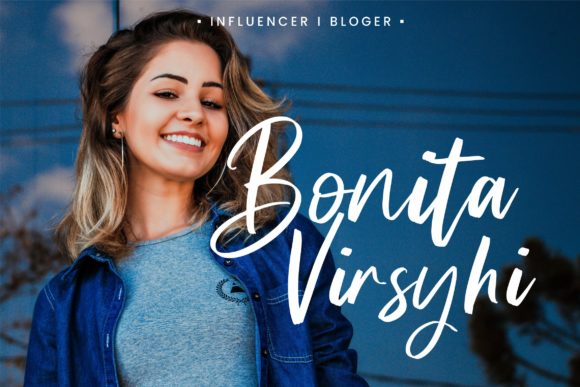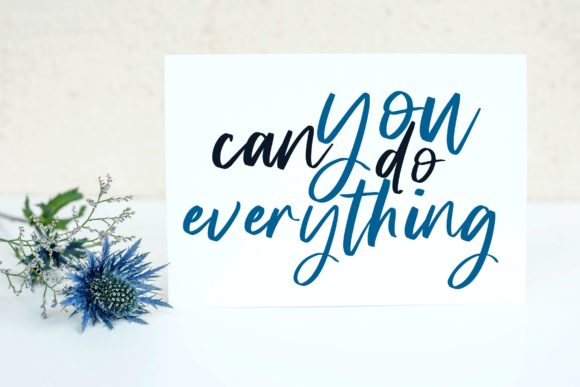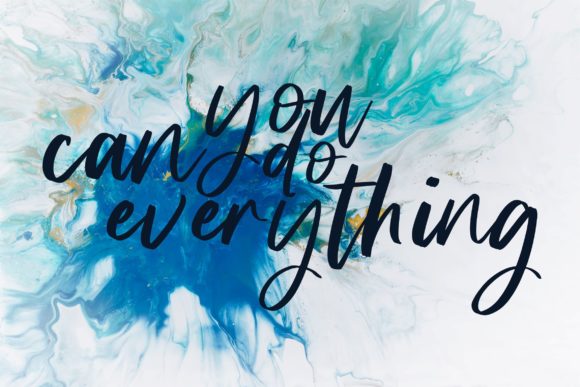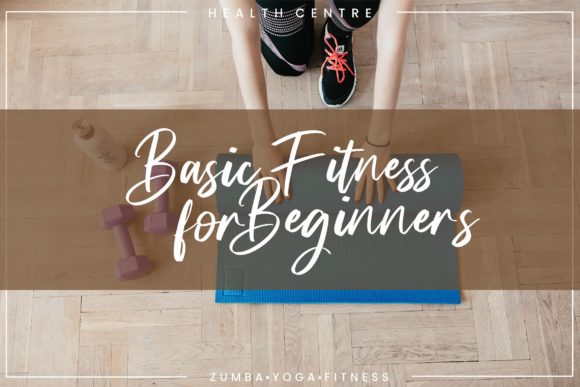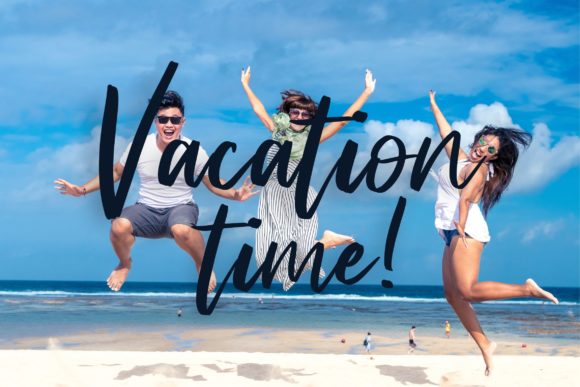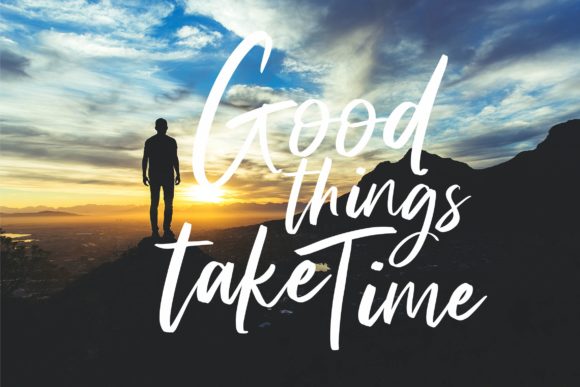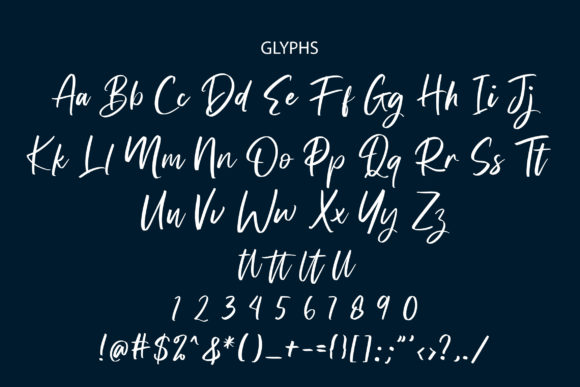
Milando Font
About Milando Font
Milando is an incredibly distinct, delicate and timeless handwritten font. It looks stunning on wedding invitations, thank you cards, quotes, greeting cards, logos, business cards and every other design which needs a handwritten touch.